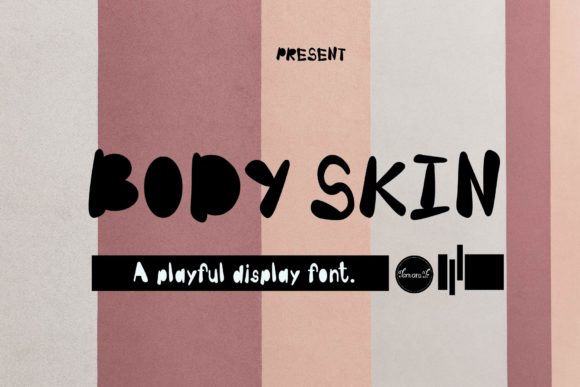
**Body Skin Font: Your Ticket to Creative Bliss**
Unleash your imagination with Body Skin Font, a captivating display font that exudes warmth and playfulness. Its charming curves and whimsical strokes evoke a sense of carefree abandon, inviting you to express your unique style with flair.
Whether you're a social media maven looking to captivate your audience on Instagram or a DIY enthusiast seeking to add a touch of delight to your projects, Body Skin Font is your go-to choice. Its versatility knows no bounds, effortlessly adapting to a wide range of creative endeavors.
Step into a world where creativity flows effortlessly and every word becomes a captivating expression. Body Skin Font is the font of choice for those who dare to embrace the extraordinary, transforming their ideas into works of art that resonate with the heart.
**Why Body Skin Font is Your Creative Ally:**
* Its captivating curves and cheerful strokes evoke a sense of genuine joy, creating an instant connection with your audience.
* Its unwavering charm adds a touch of warmth to your projects, making them irresistible to the eye.
* Its versatility empowers you to explore endless creative possibilities, from social media posts to DIY wonders, without any limitations.
* Expertly crafted for the digital realm, Body Skin Font ensures your creations shine brightly on screens of all sizes.
**Experience the Joy of Body Skin Font Today!**